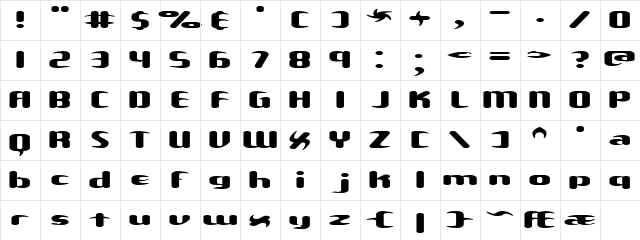
Unexplored Galaxies W (BRK) Regular
Design Context for Unexplored Galaxies W (BRK) Typeface
Unexplored Galaxies W (BRK) is a composed and adaptable typeface that performs quietly and consistently across a wide range of design contexts.